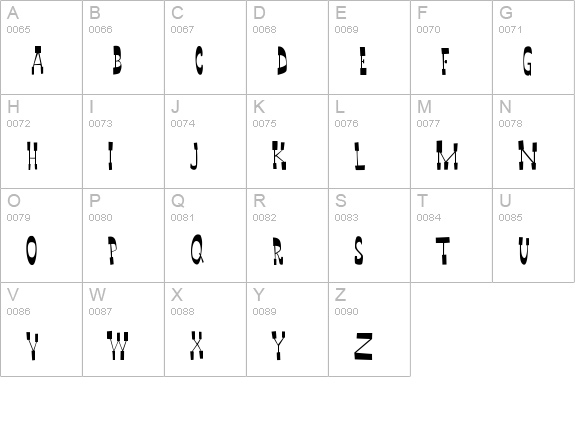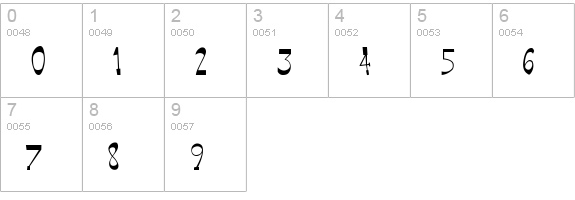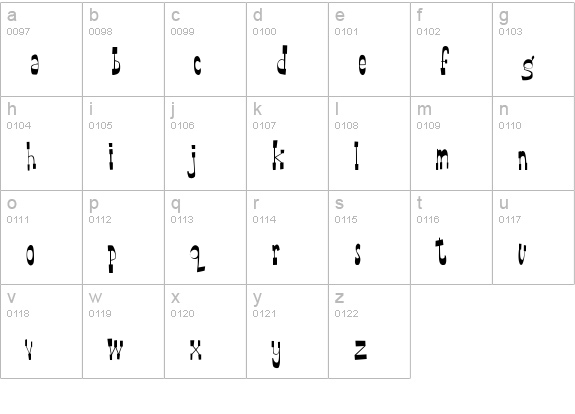
WayOutWestSlim Font Details
Introducing WayOutWestSlim, a stunning font that effortlessly captures the essence of the Wild West with its rugged yet refined design. This extraordinary typeface is perfect for adding a touch of rustic charm to any project, whether it be a vintage poster, a western-themed logo, or even a cowboy-inspired website. WayOutWestSlim boasts a unique combination of slim and elongated letterforms, creating a distinct visual appeal that is both timeless and versatile. Its elegant curves and meticulously crafted details pay homage to the iconic typography of the Old West, while still maintaining a contemporary edge. Every character exudes a sense of adventure and freedom, making it the perfect choice for those seeking to evoke the spirit of the open range. What makes WayOutWestSlim font even more appealing is the fact that it is completely free to download at FontsMarket.com. Yes, you read that right – this exceptional font can be yours without spending a dime. With just a few clicks, you can have access to this treasure trove of typographic excellence, ready to elevate your designs to new heights. So, why wait? Unleash your creativity and embrace the untamed beauty of the Wild West with WayOutWestSlim. Download it today from FontsMarket.com and let your imagination run wild. Get ready to embark on a typographic journey that is as free-spirited as the landscapes that inspired it.